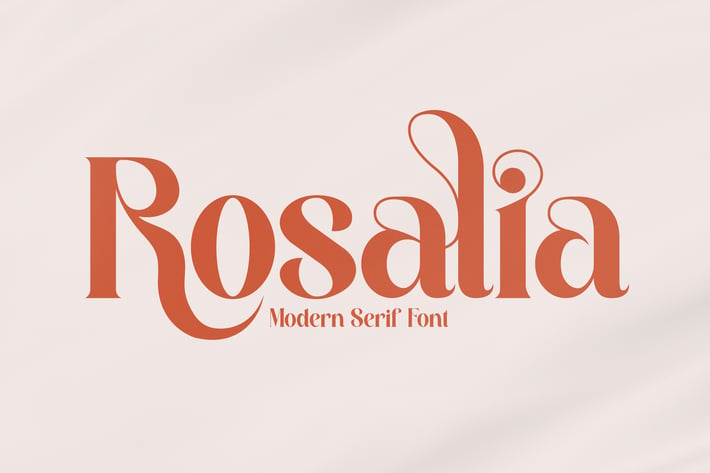
Rosalia Modern Serif Font
Rosalia Modern Serif Font is a chic and contemporary serif typeface with elegant curves and bold character shapes. Its stylish form blends modern design with timeless sophistication, making it a perfect choice for both digital and print projects.
+ Modern serif style with unique letterforms
+ High contrast strokes for elegant readability
+ Branding & logo design
+ Editorials & magazines
+ Social media graphics
+ Posters & promotional materials
+ Fashion & lifestyle projects
Rosalia – a modern serif that blends timeless sophistication with bold, stylish flair.